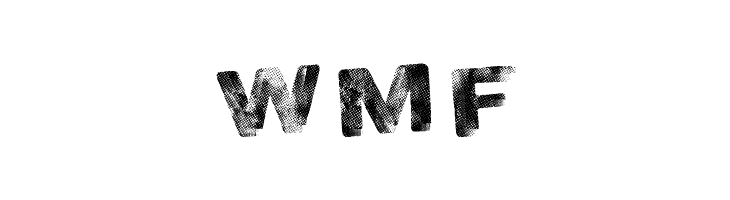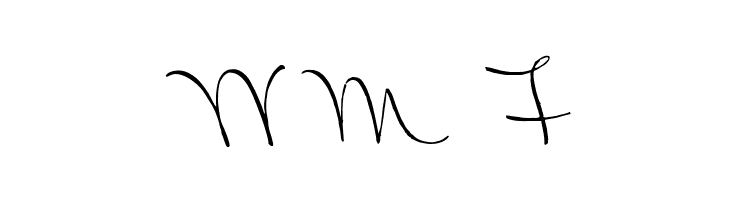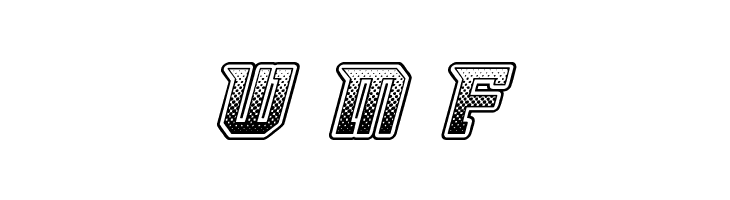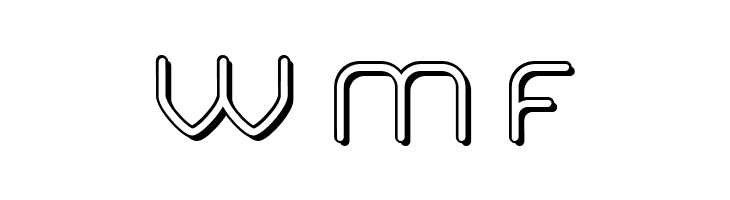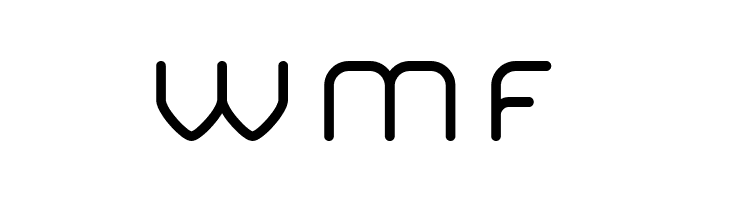
• RhinoRaja
A bold, distressed font with a rugged, industrial style.
• Rhyder
A bold, geometric font with a modern and impactful design.
• Ribbon in the Sky
• Ribbons and banners Regular
A decorative font with ribbon-like, angular characters and a bold, vintage-modern style.
• Rick Lobster Regular
A bold, stencil-like font with a modern, industrial aesthetic.
• Riddle-Script
A playful and whimsical script font with flowing, interconnected letterforms.
• Riddle-Upright
A playful, whimsical font with tall, narrow letters and a creative flair.
• RidIculOuSnesS
A bold, modern decorative font with geometric and dynamic elements.
• Rifle bats tfb
A decorative font with characters shaped like rifles, offering a bold, thematic style.
• Right Balance
A playful, handwritten font with a quirky and whimsical style.
• Right Balance
A playful, hand-drawn font with tall, narrow characters and a whimsical style.
• RightBrew
A bold, distressed font with a grunge aesthetic and textured edges.
• RightPlace
A dynamic and expressive handwritten font with fluid strokes.
• RightPrice
A playful, casual handwritten font with irregular strokes.
• righttrack
A bold, textured font with a vintage halftone pattern and 3D shadow effect.
• RipeDusk
A casual, handwritten font with a playful and spontaneous feel.
• Rivaldizakie
A modern, rounded font with a clean and futuristic look.
• Rivaldizakie-OutlineShadow
A modern outline shadow font with a geometric and three-dimensional appearance.
• Rixon
A bold, geometric font with a modern and futuristic design.
• Roadshow-IAIC-2013
A playful, rounded font with bold, smooth curves and a friendly appearance.
• RoadSkin
A bold, textured font with a distressed, grunge-like appearance.